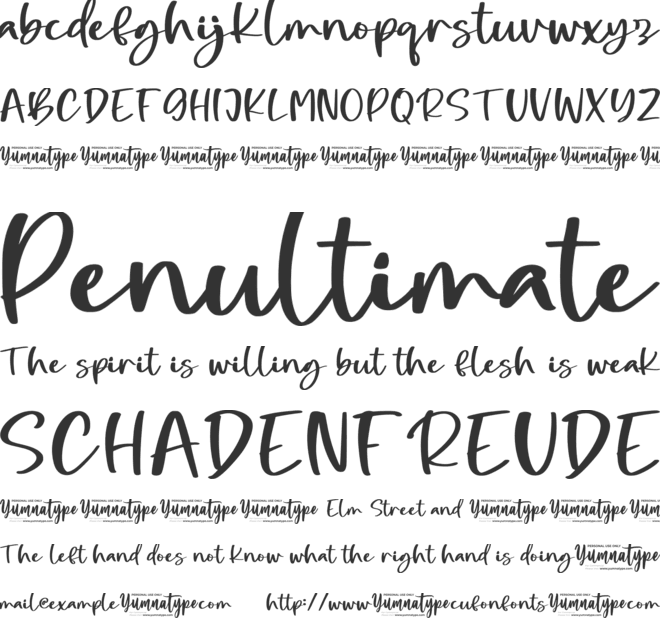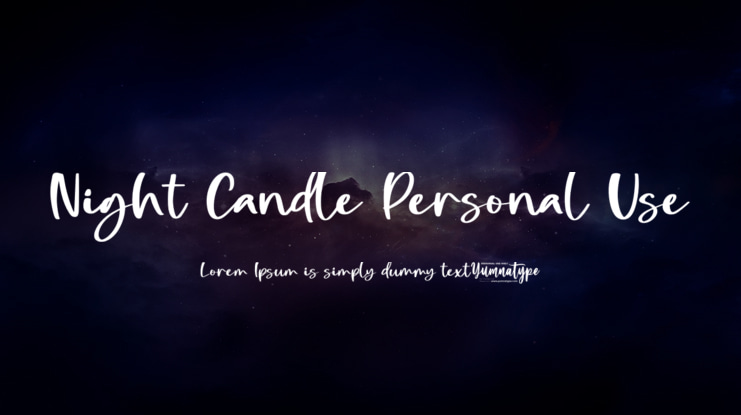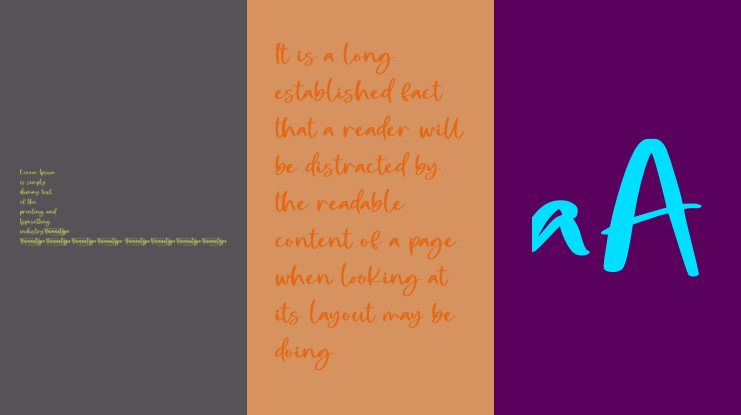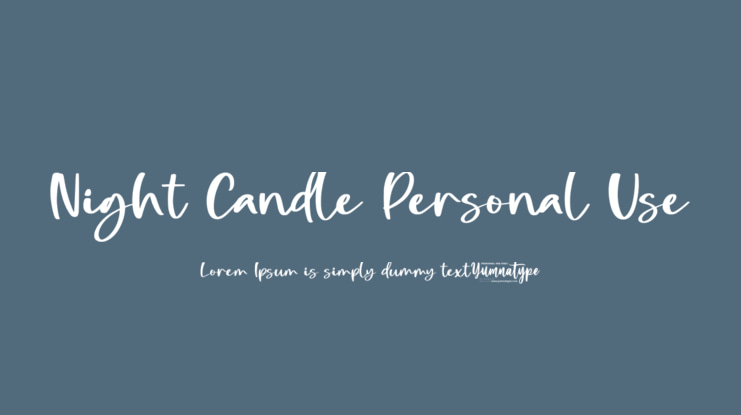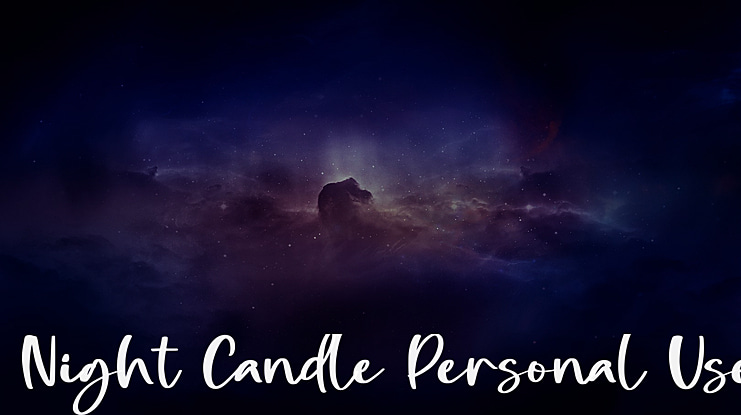
Night Candle is a elegant handwritten font. Made for any professional project branding. It is the best for logos, branding and quotes. Every letter has a unique and beautiful touch.